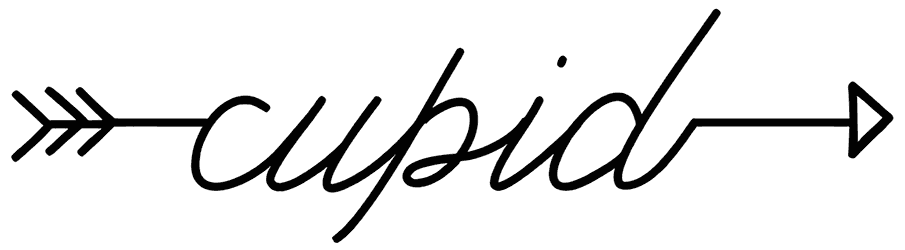
KL Cupid Font
Are you in the mood to give a romantic touch to your graphic designs, especially greeting cards, posters, album covers, or Valentine’s social media posts?
Well, a script font like KL Cupid, inspired by the divinity of erotic love carrying a bow and arrow, would give you a hand to satisfy your ambitions; it lacks the uppercase letters and numbers, yet it’s in the lead. If you desire more of Valentine’s font, dive into our virtual library right away.